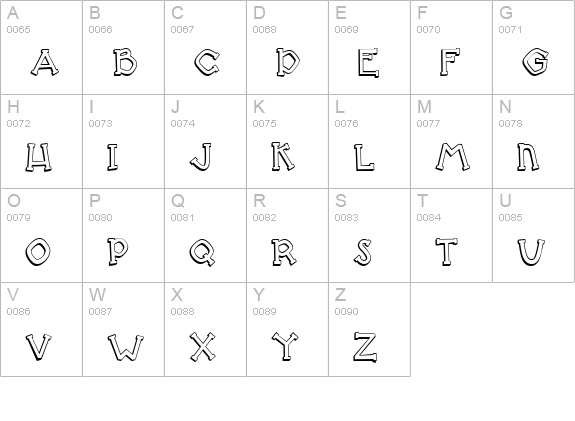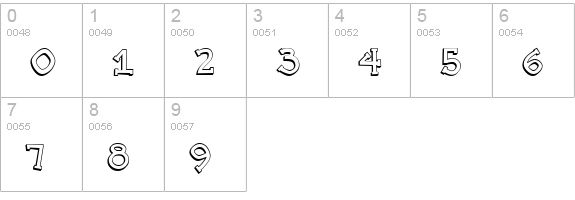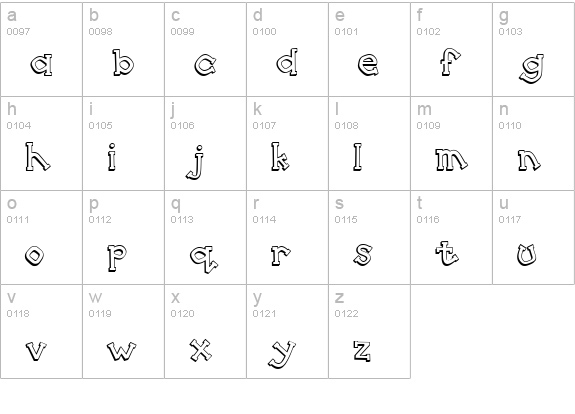
CK Shadowed Block Font Details
The CK Shadowed Block font is a modern and sleek typeface that exudes sophistication and style. Its bold and edgy design makes it perfect for creating eye-catching headlines, logos, and posters. The unique shadowed effect adds depth and dimension to any text, making it stand out from the crowd. What's even better is that CK Shadowed Block font is available for free download at FontsMarket.com. This means you can easily add this versatile font to your collection without having to spend a dime. Whether you're a designer looking to enhance your projects or someone who simply appreciates quality fonts, CK Shadowed Block is a must-have addition to your font library. Download it today and start creating stunning designs with ease.